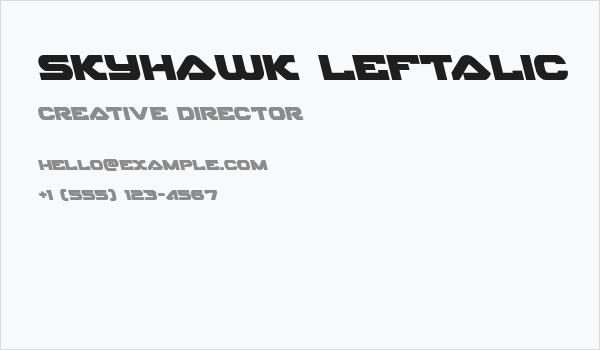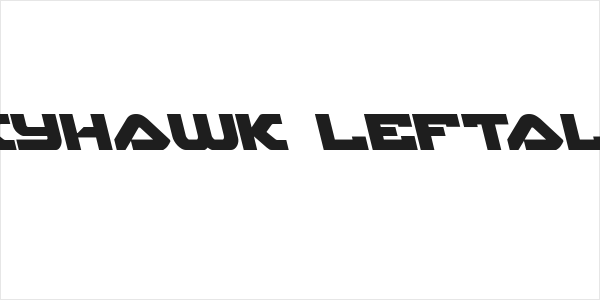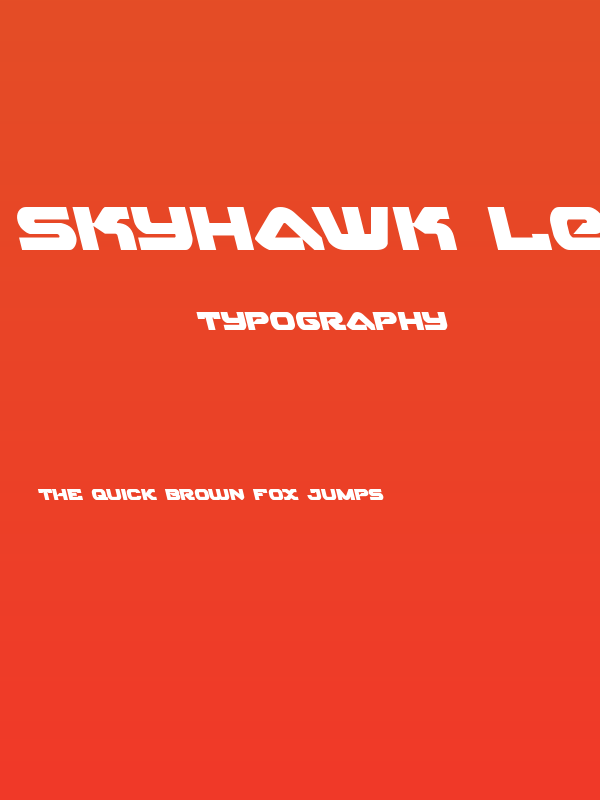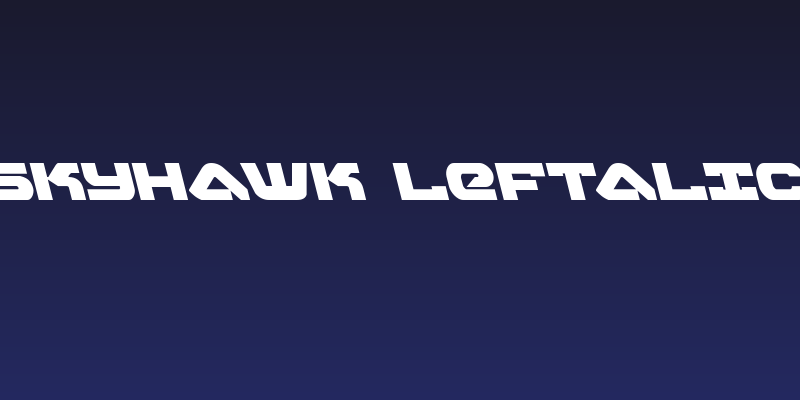
Skyhawk Leftalic Font
Skyhawk Leftalic Description
This font features a bold, futuristic design with angular cuts and a strong geometric presence. The characters are wide and have a distinct slant, giving them a dynamic and forward-moving appearance. The uppercase and lowercase letters maintain a consistent style, enhancing readability while retaining a unique aesthetic. The numbers and special characters follow the same design principles, ensuring uniformity across all elements. The font's boldness and angularity make it suitable for projects that require a modern and edgy look.
| Proposed Projects | Ideal for sci-fi themed designs, video game graphics, tech branding, and modern posters. |